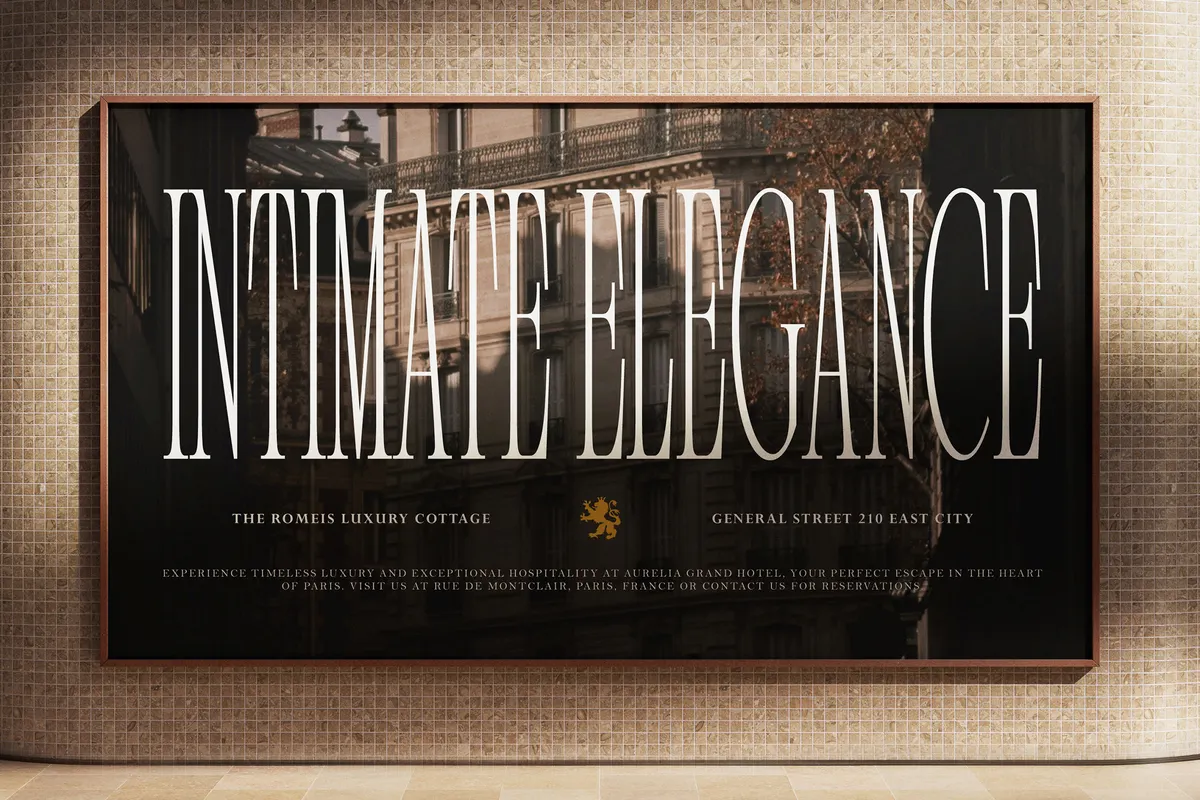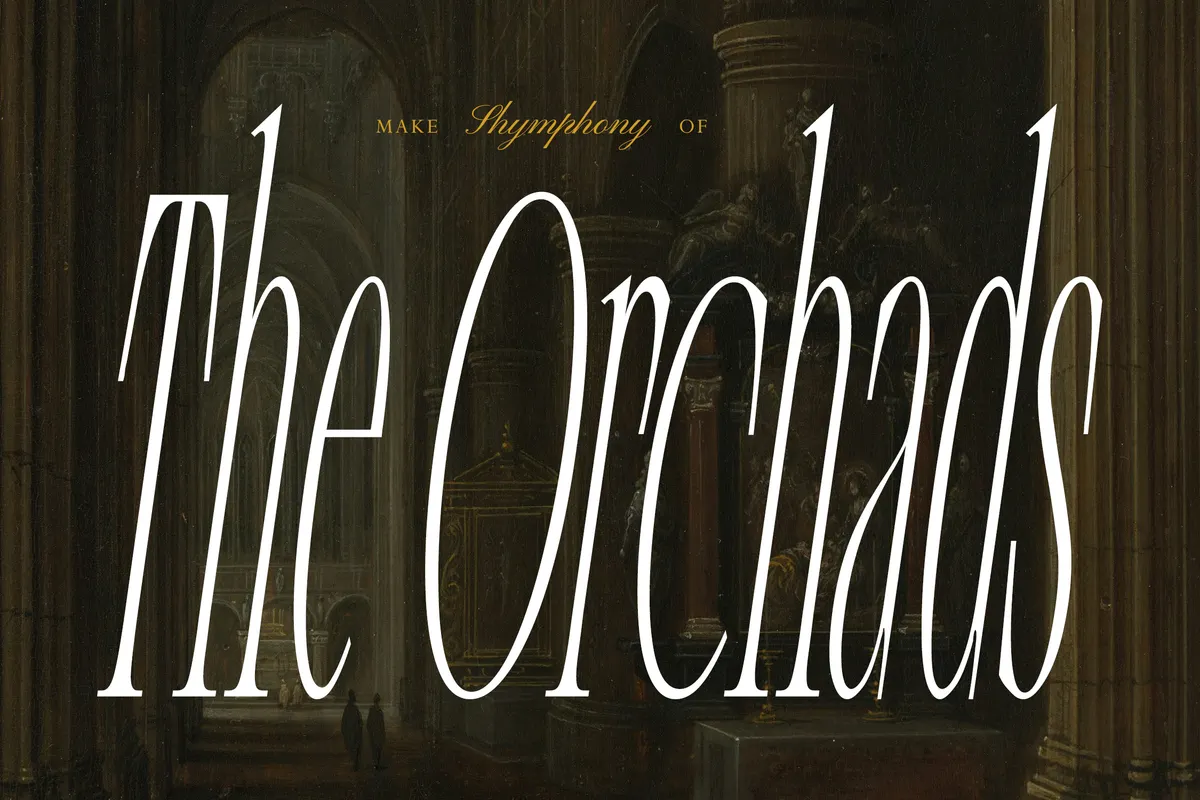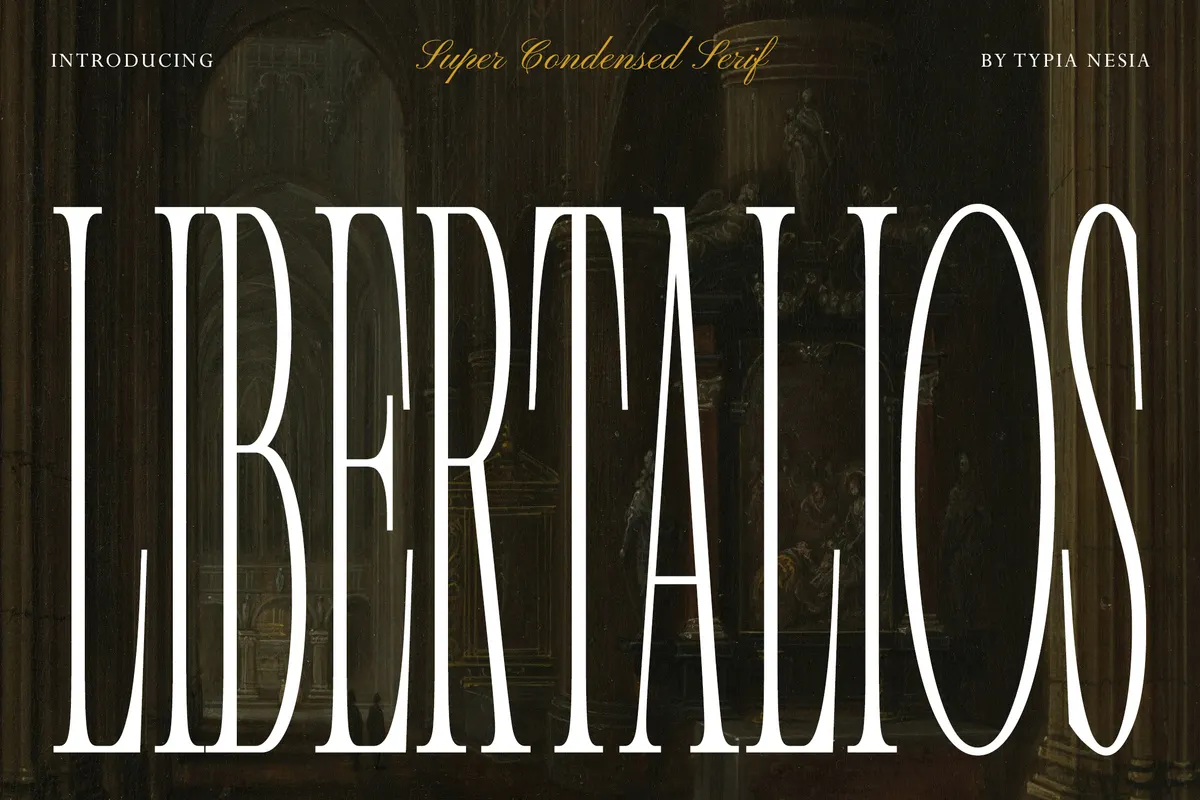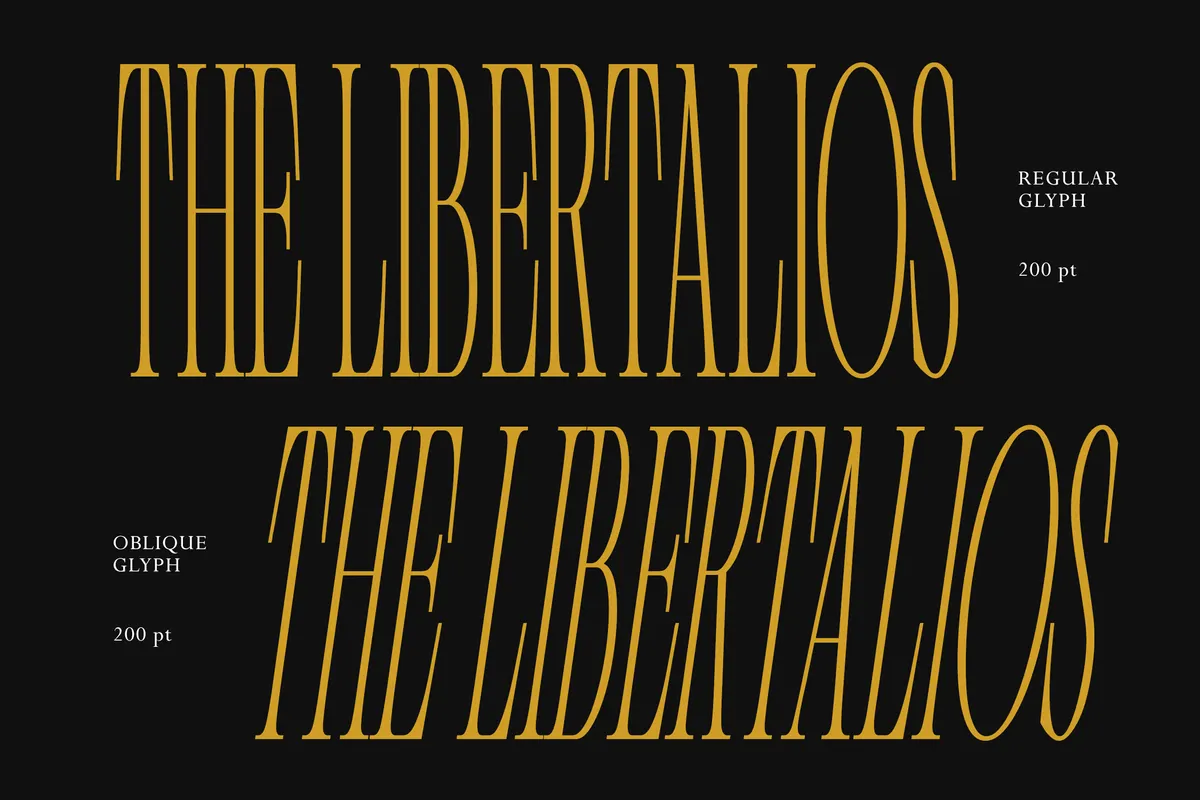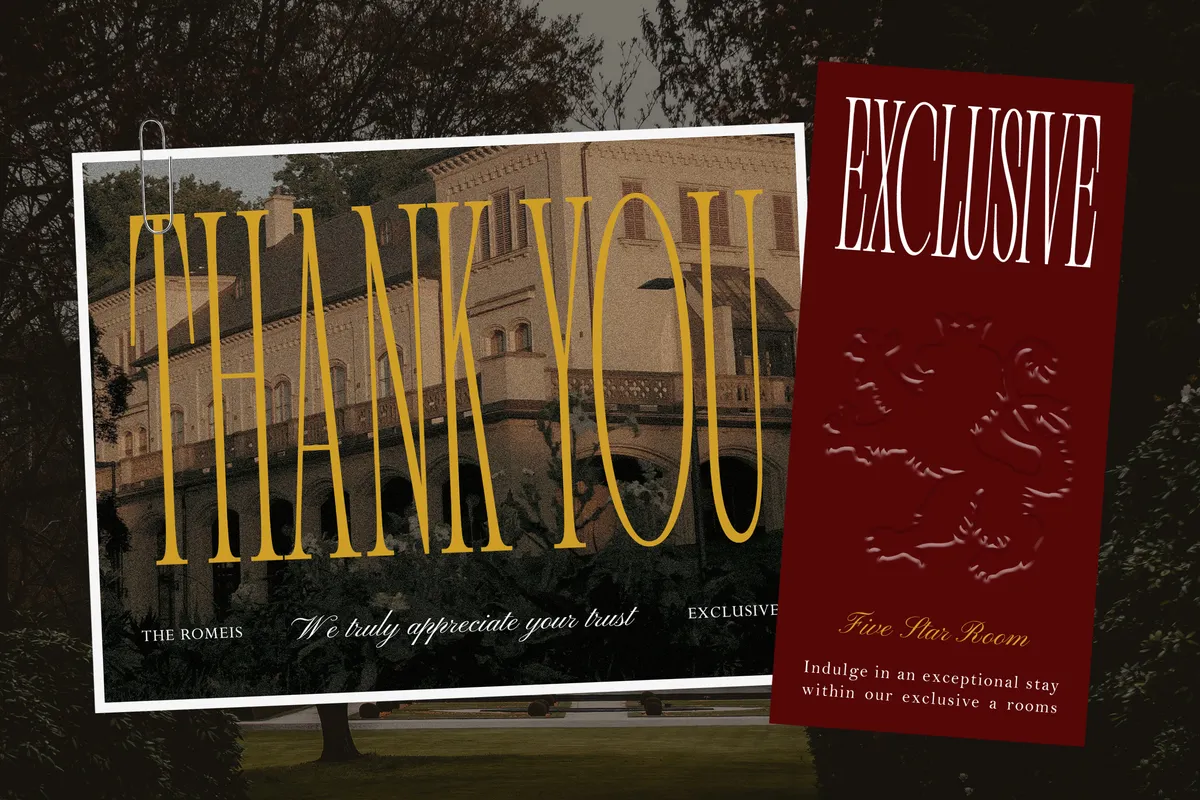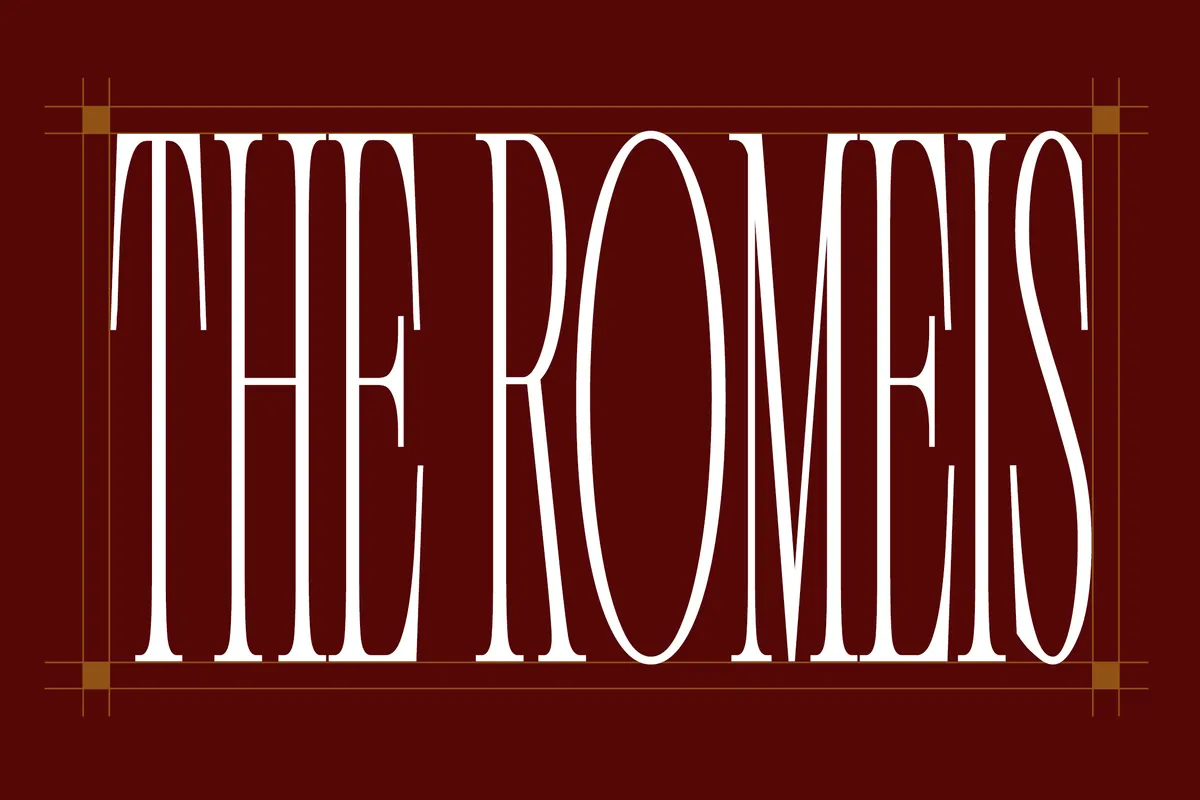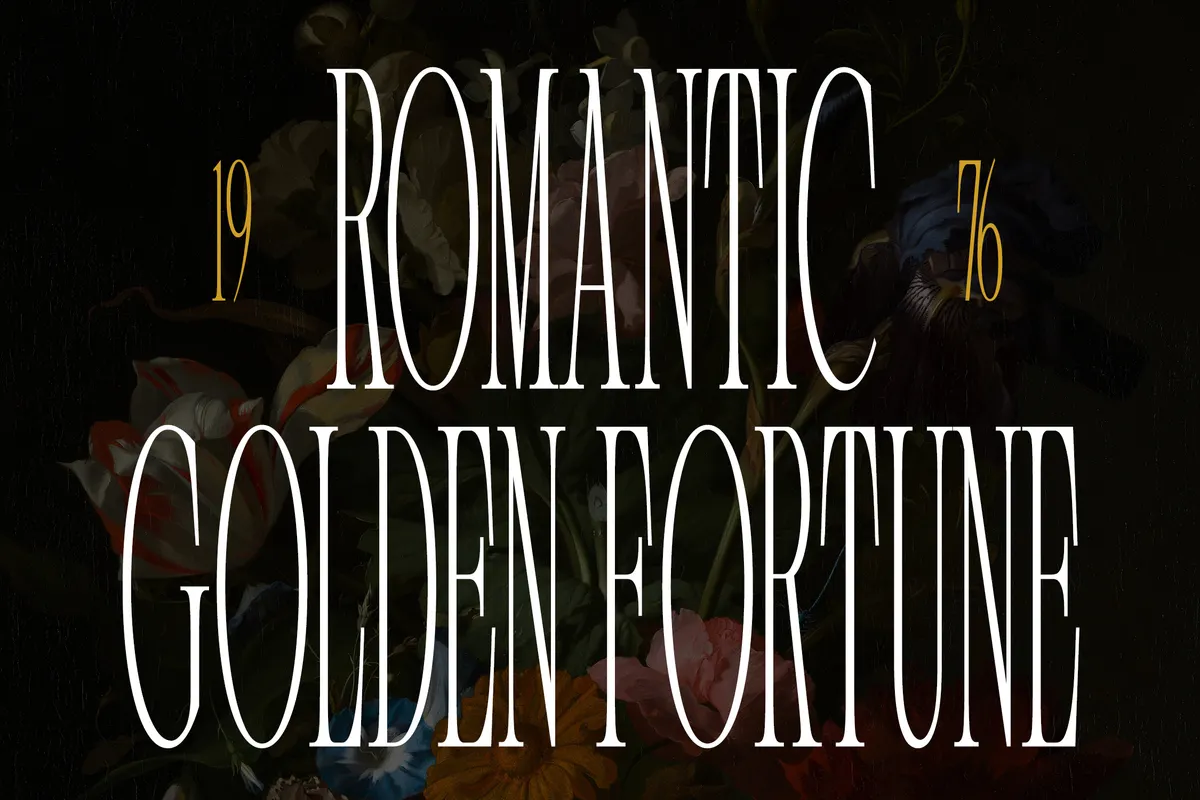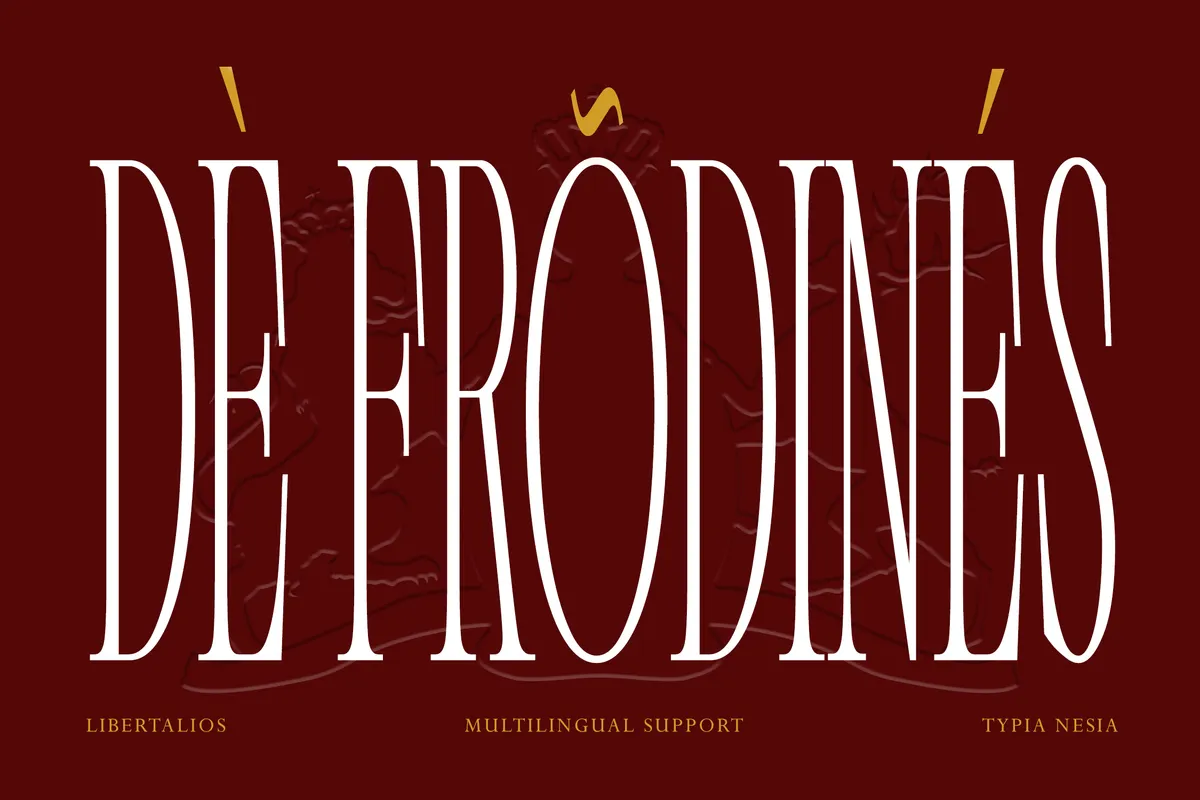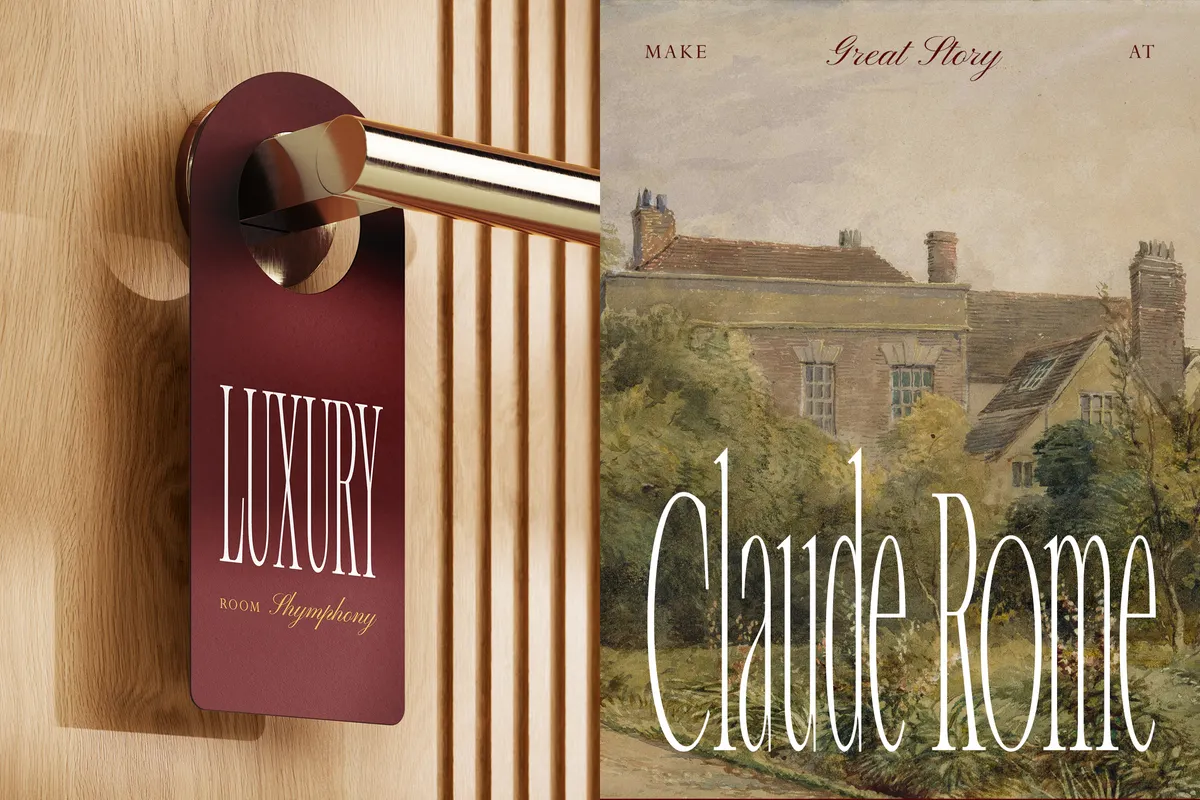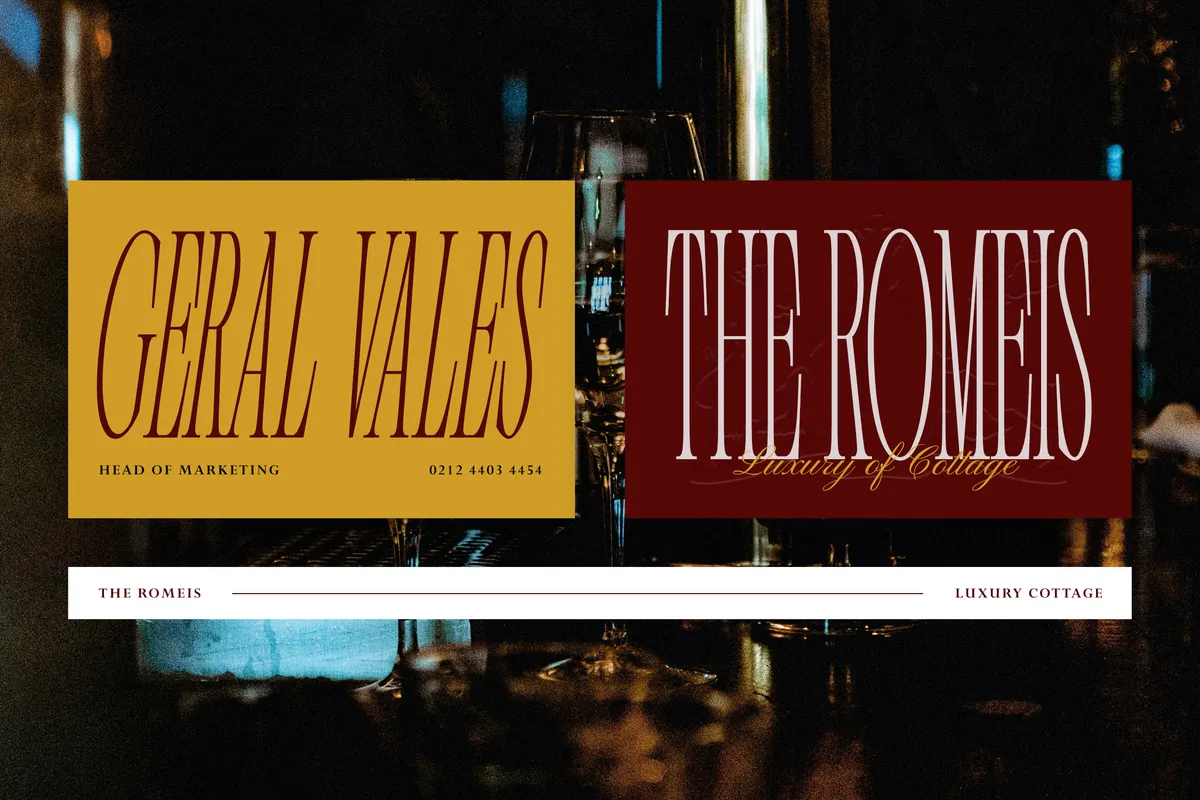
Libertalios - Super Condensed Display Serif
Oblique
Libertalios
Libertalios is a tall serif font compressed almost to a column, with hairline serifs, sharp vertical stress and a cap height that runs two or three times its width. A single word fills a poster from top to bottom, closer to a theatre bill than a magazine masthead.
The Oblique is a slanted version of the same drawing, useful for a second line in the same voice. Use it for hotel door hangers, restaurant menus, wine and spirits labels, fashion editorial titles, wedding invitations, perfume packaging, and book spines.